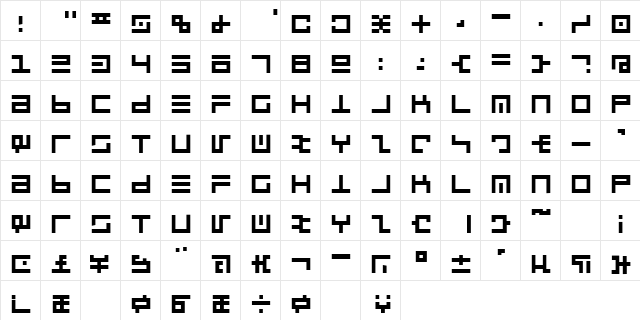
UltraLine Regular
Design Context for UltraLine Typeface
UltraLine is a composed and adaptable typeface that performs quietly and consistently across a wide range of design contexts.
Pro Tip: Use UltraLine in both headline and body roles to test its range before committing to a single application.